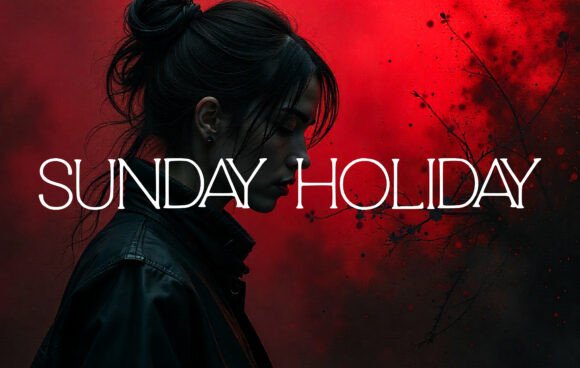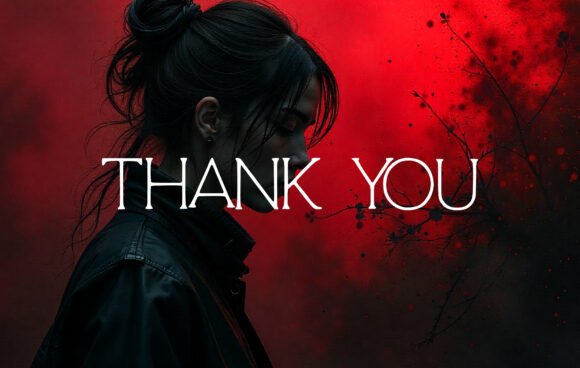
Introduction to Partner Font
Have you ever found yourself staring at a blank canvas, struggling to bring your creative vision to life? The blank page can be a daunting space, but what if you had the perfect companion to guide you through the process? Enter the Partner Font, a high-quality design resource that’s sure to elevate your creative project to the next level.
With its clean lines and legible design, Partner Font is the perfect partner in crime for any design endeavor. Whether you’re working on a magazine headline, social media campaign, or wedding invitation, this versatile font is sure to deliver. And the best part? It’s available for free download, making it an accessible design resource for designers of all levels.
Key Features of Partner Font
- High-quality design: Partner Font offers a unique and sophisticated look perfect for creative projects.
- Transparent background: Partner Font comes with a transparent background, allowing for easy customization and integration with other design elements.
- High-resolution design: Partner Font is designed at a high resolution, making it suitable for use in both print and digital applications.
- Extensive character set: Partner Font includes a comprehensive character set, including uppercase and lowercase letters, numbers, and punctuation marks.
- Scalable design: Partner Font is designed to be scalable, allowing users to easily resize the font without compromising its quality or readability.
Honest Review: Partner Font
I recently stumbled upon the Partner Font while working on a creative project, and I’m excited to share my honest review.
First off, the Partner Font is a free download, which is always a bonus for designers on a budget. The high-quality design is crisp and clean, making it perfect for a variety of projects.
- ✨ The Partner Font’s design is modern and sleek, with a neutral tone that pairs well with most backgrounds.
- ✨ The font is highly legible, even at small sizes, making it ideal for body text.
- ✨ The transparent background option is a great feature, allowing designers to easily integrate the font into their designs.
- ⚠️ The Partner Font is a basic sans-serif font, which may not be suitable for projects that require a more unique or stylized font.
- ⚠️ Some users may find the font’s weight to be too light, making it difficult to read in certain situations.
Overall, I’m impressed with the Partner Font as a design resource. It’s a solid choice for designers looking for a clean and easy-to-read font for their creative projects.
Tips for Getting the Most Out of Partner Font
Use the Partner Font on a transparent background to create a clean and modern design.
Combine the Partner Font with other high-quality design resources to create a unique and eye-catching design.
The Partner Font is commonly used in a variety of creative projects, including:
Graphic design
Branding and marketing materials
Print and digital media
Web design and development